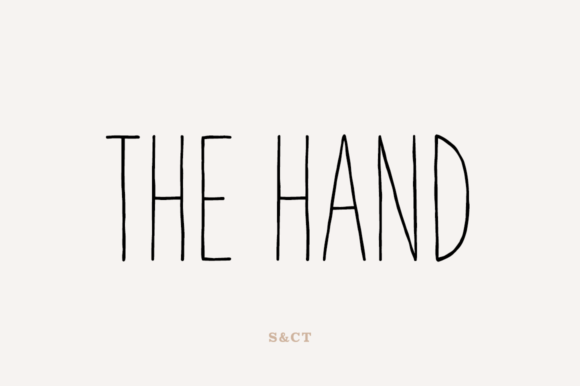
In a world yearning for unique self-expression, allow us to introduce you to The Hand Font - a script typeface that encapsulates the beauty of handwritten elegance. Born from the vibrant streets of Paris, The Hand Font is not merely a collection of letters; it's an artistic journey waiting to be embarked upon.
Experience the magic of authentic handwritten strokes that dance across your digital canvas. The Hand Font's inherent charm lies in its effortless readability, making it a perfect fit for a multitude of designs. Its finely balanced structure ensures clarity and coherence, while its playful dotted weights infuse a touch of whimsy and sophistication.
Dive into a realm of creative possibilities with The Hand Font. Its versatility knows no bounds, catering to an array of design endeavors - from visually striking logos and branding to captivating social media posts and website designs. Unleash your imagination and watch as The Hand Font transforms your projects into captivating masterpieces.
More than just a font, The Hand Font is an invitation to embark on an artistic odyssey, where your creativity takes center stage. Its intuitive design makes it accessible to both seasoned designers and those just starting their design journey. Embrace the ease of use and let The Hand Font guide you towards design brilliance.